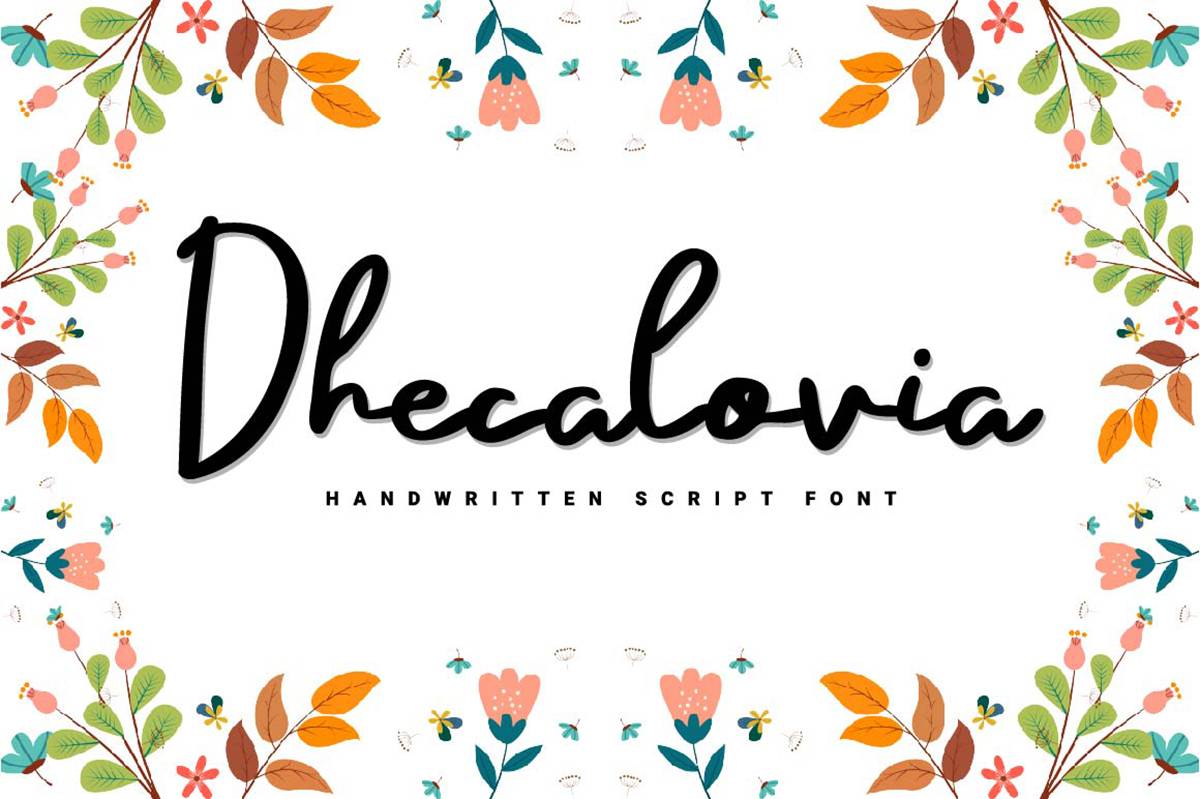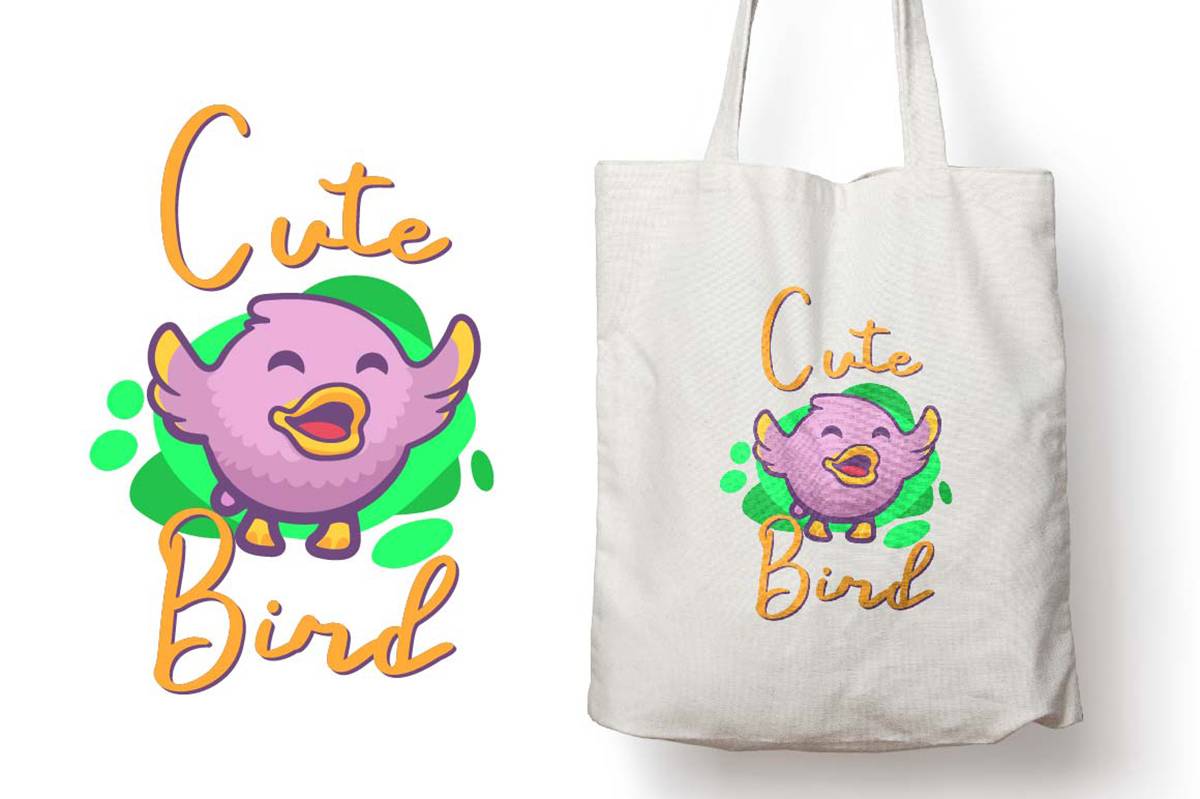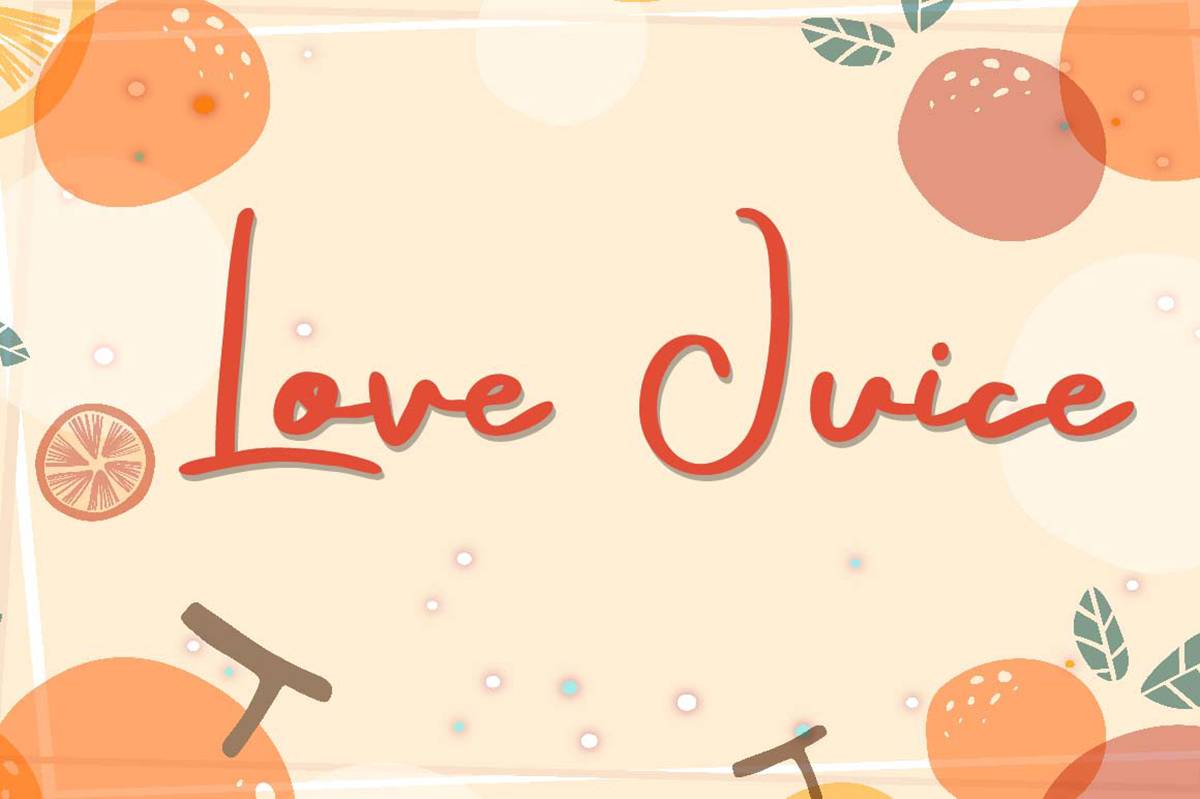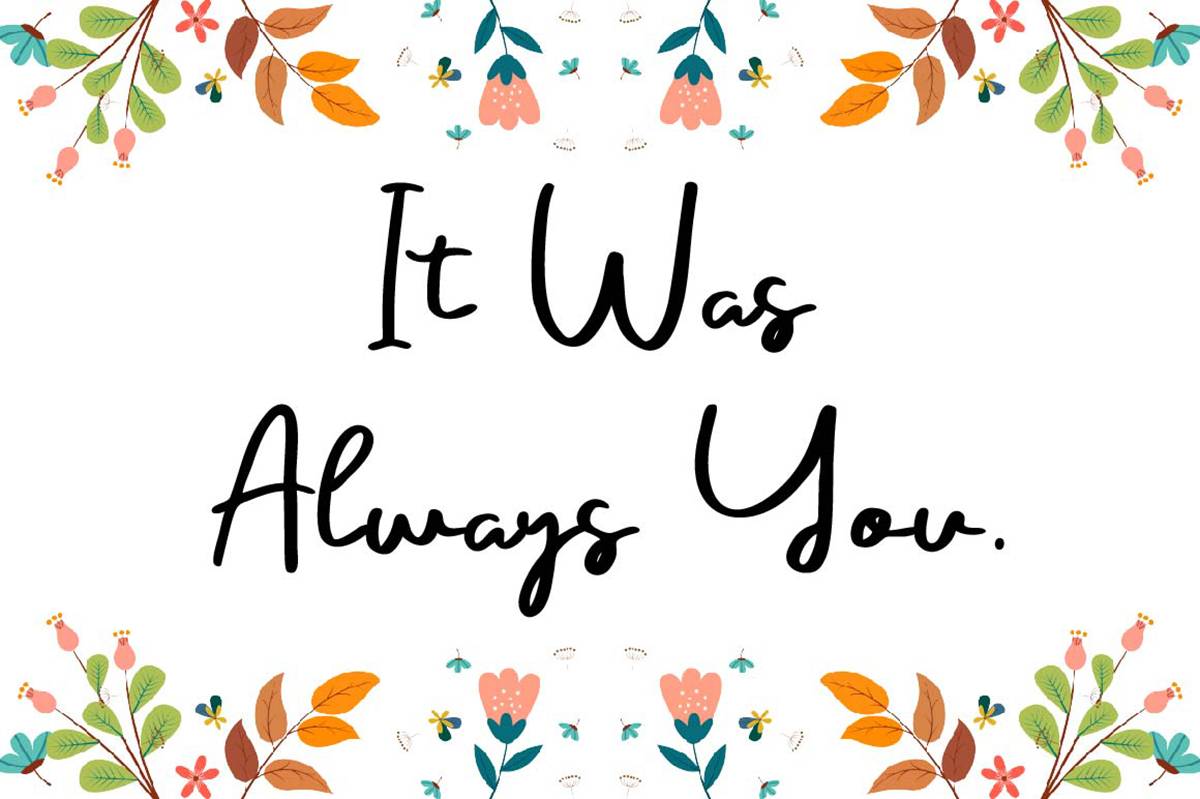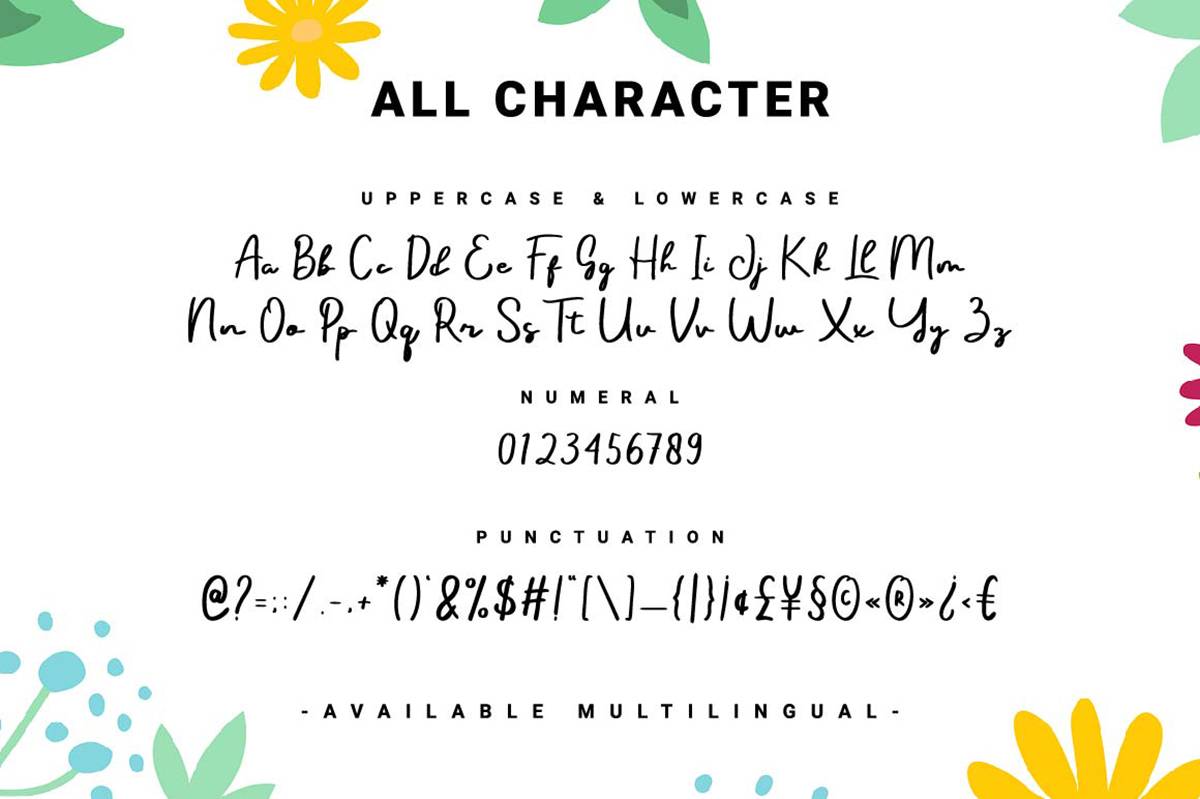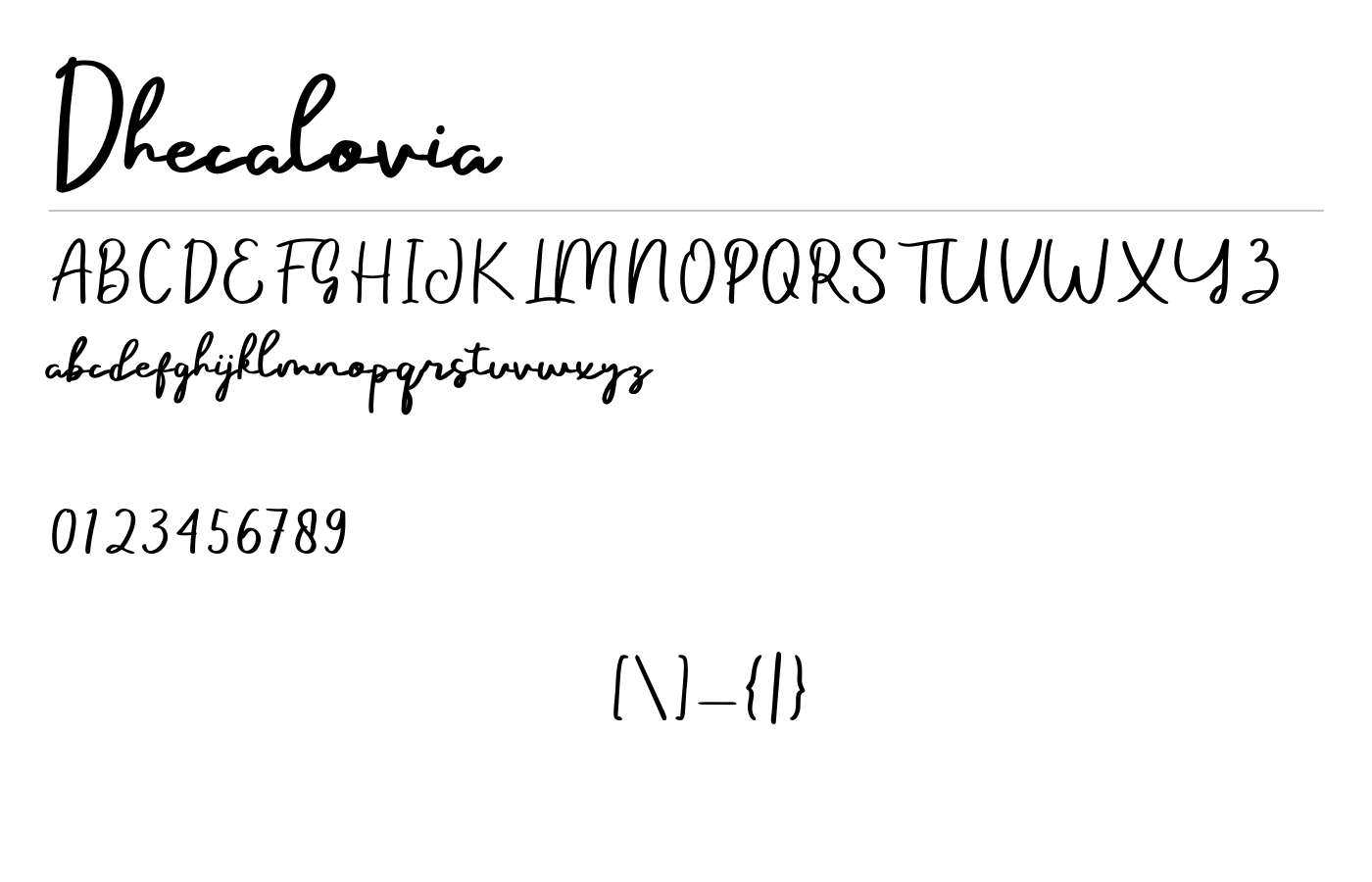
Dhecalovia is a playful and casual script font with a hand-drawn feel, featuring a light to regular weight and a tall, narrow structure that gives it a fresh and airy look. Its smooth, slightly irregular strokes and connected lowercase letters create an inviting and approachable personality, perfect for creative projects, branding, and informal communications where warmth and friendliness are desired. This font works well for logos, invitations, and headings, adding a personal touch without sacrificing readability.
Dhecalovia Font
About Dhecalovia Font
| Font family | Dhecalovia Font |
| Designer | Prio Nurokhim Aji |